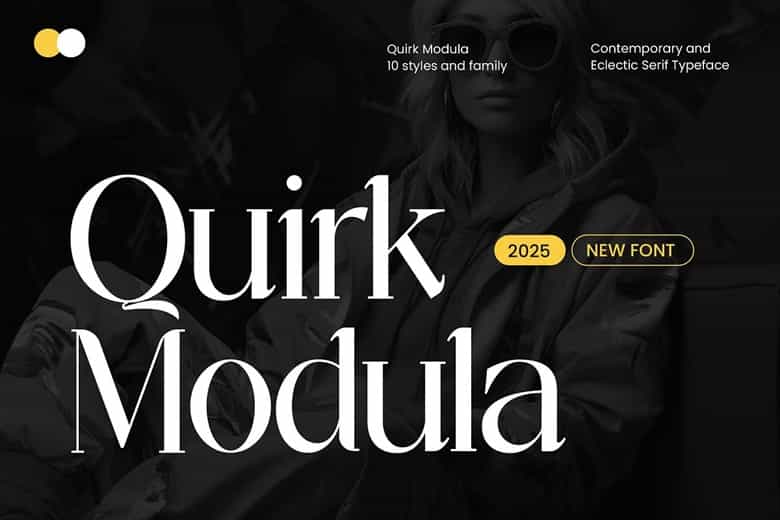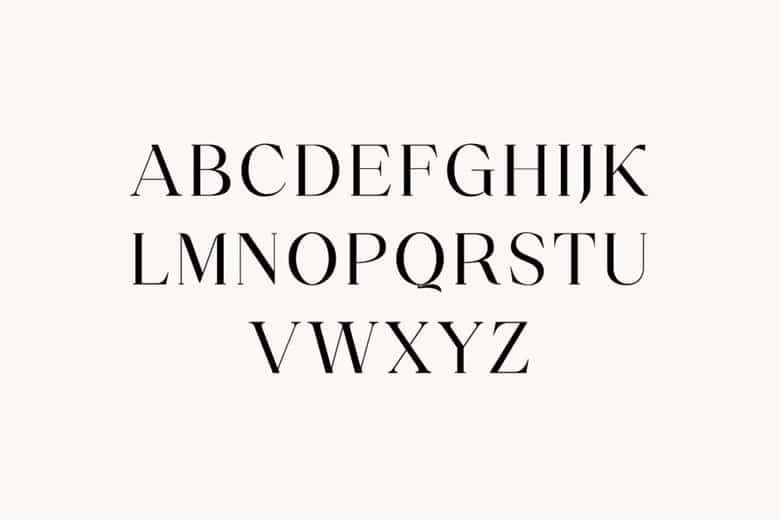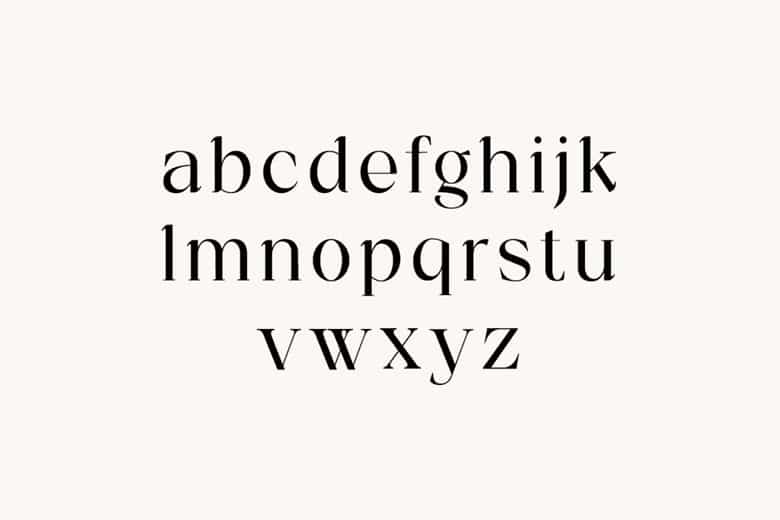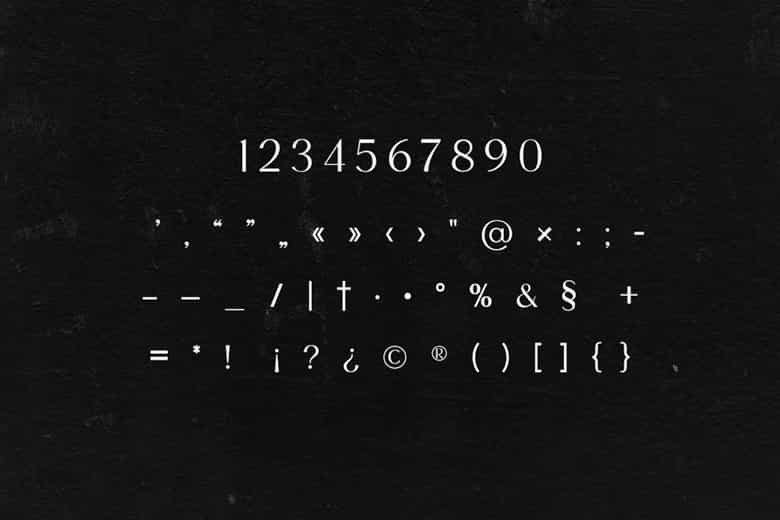
Quirk Modula is a classy, elegant, and stylish serif font. Perfectly matched for the vast majority of projects like signature, stationery, logo, wedding, typography quotes, magazine or book covers, website headers, branding and etc.